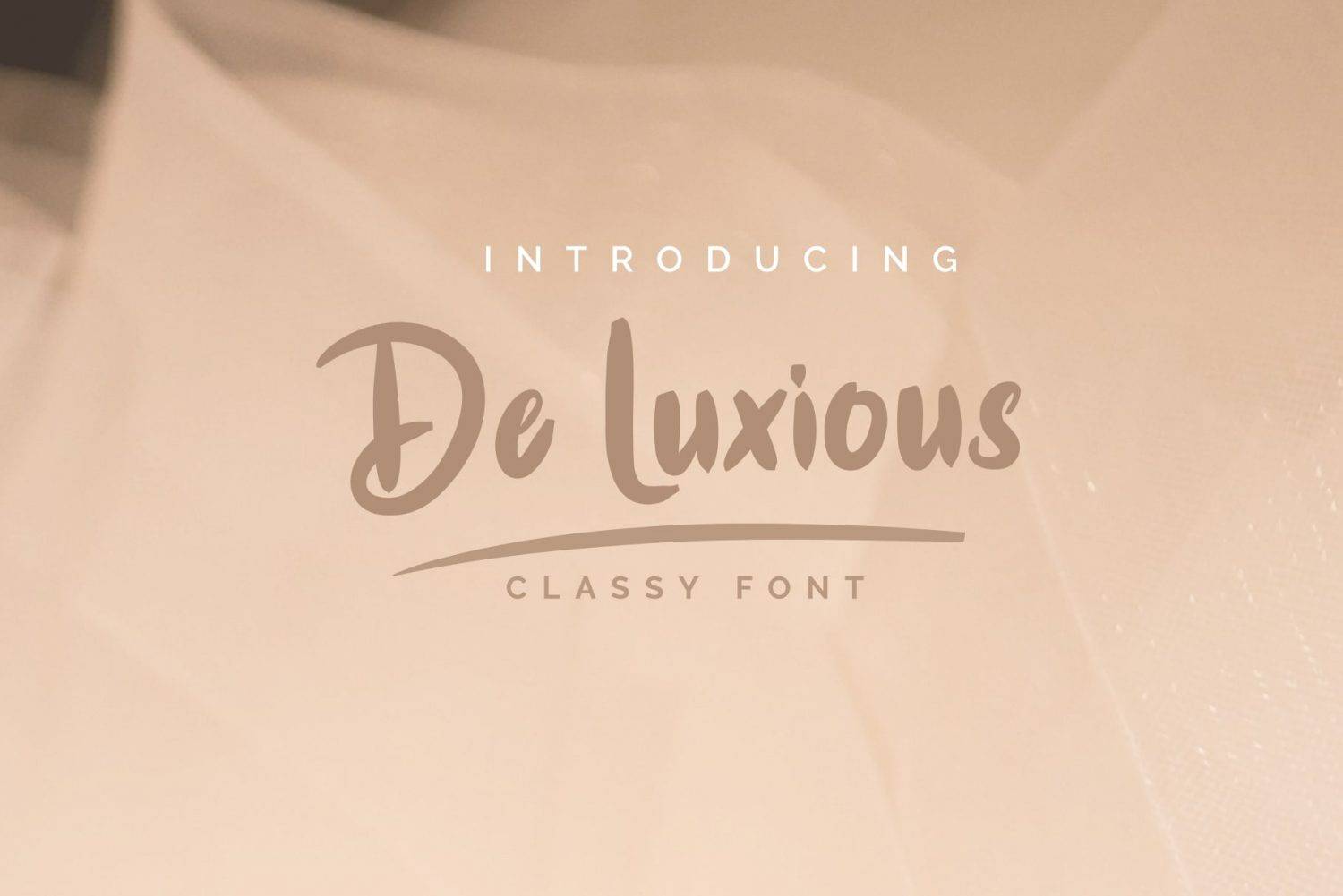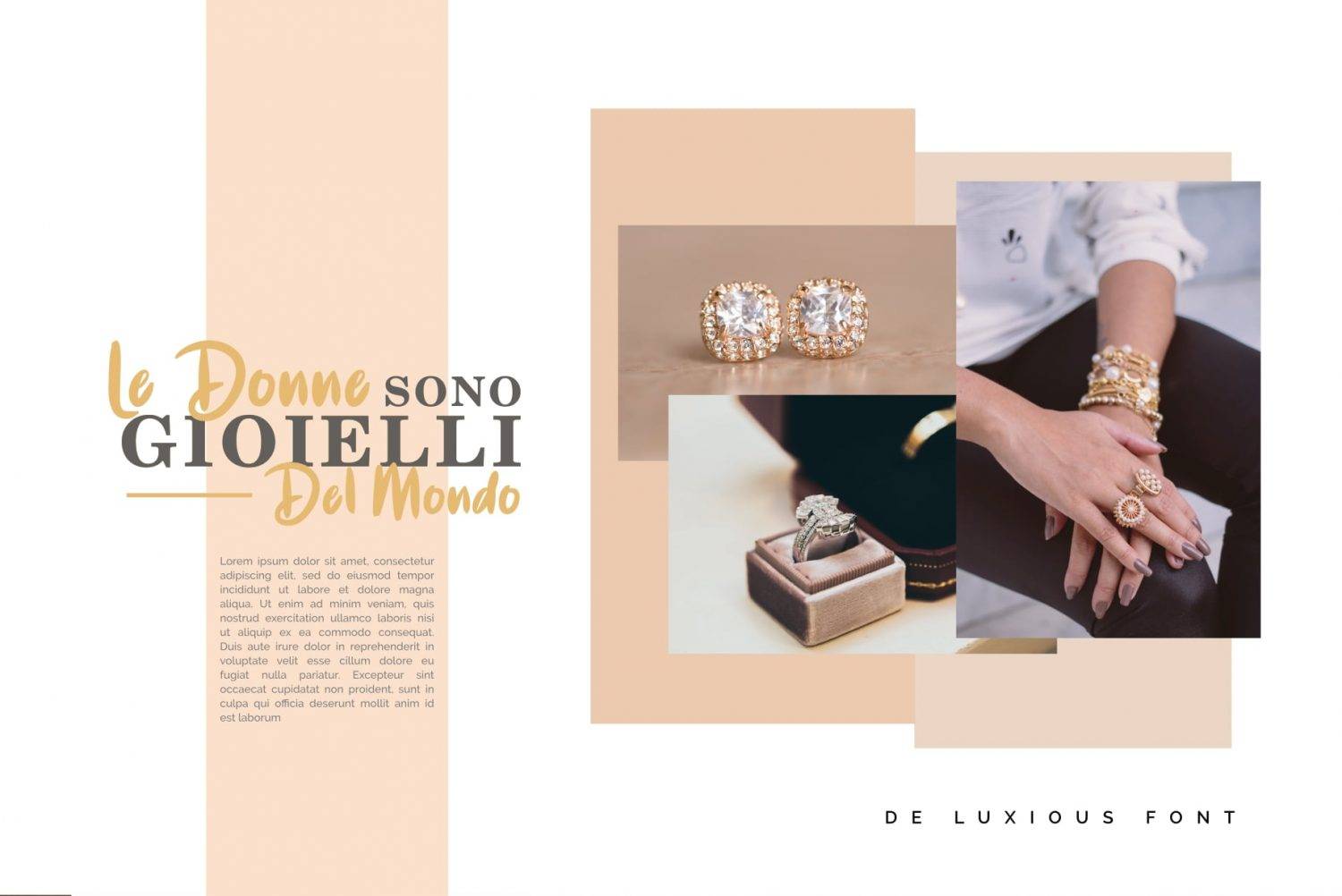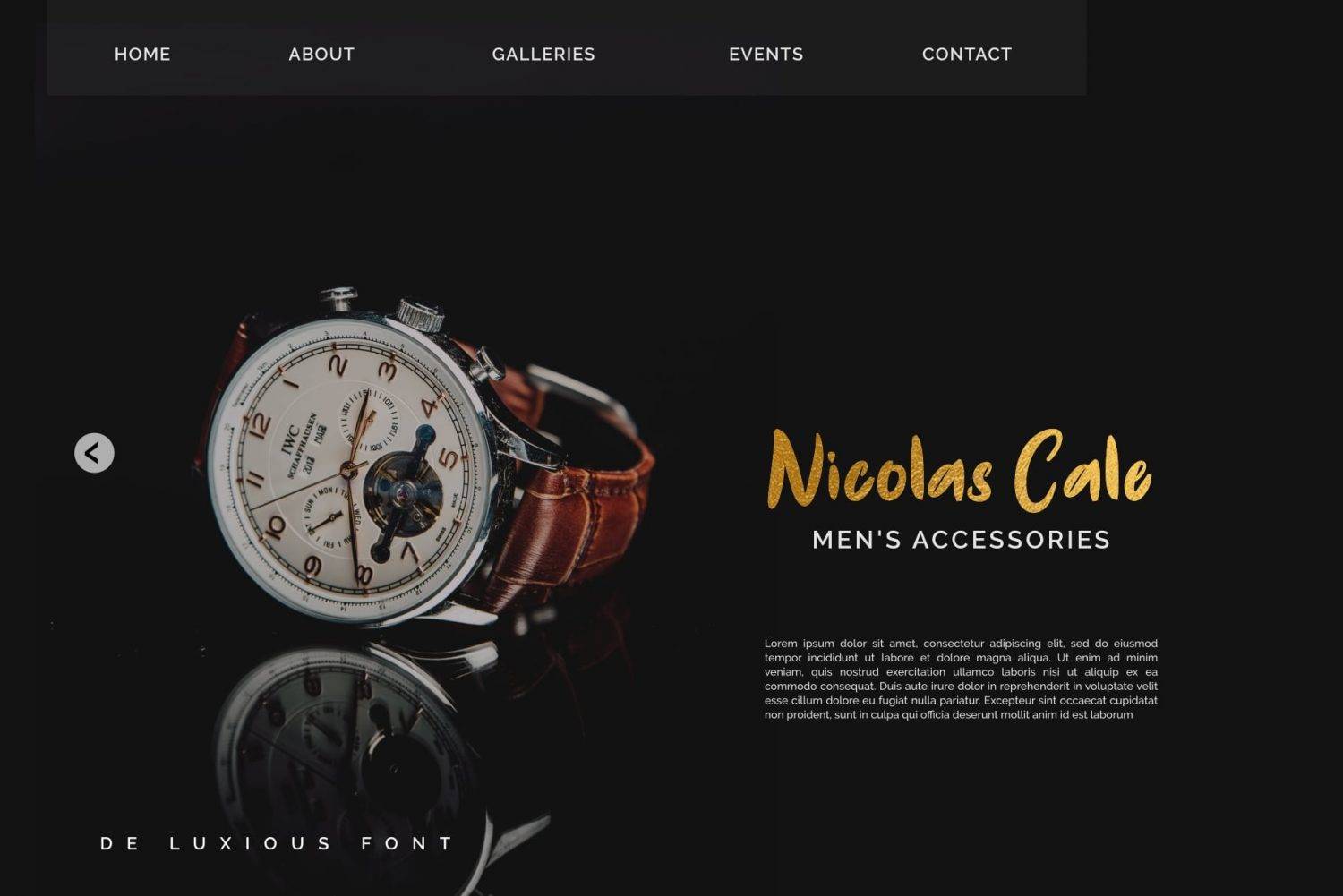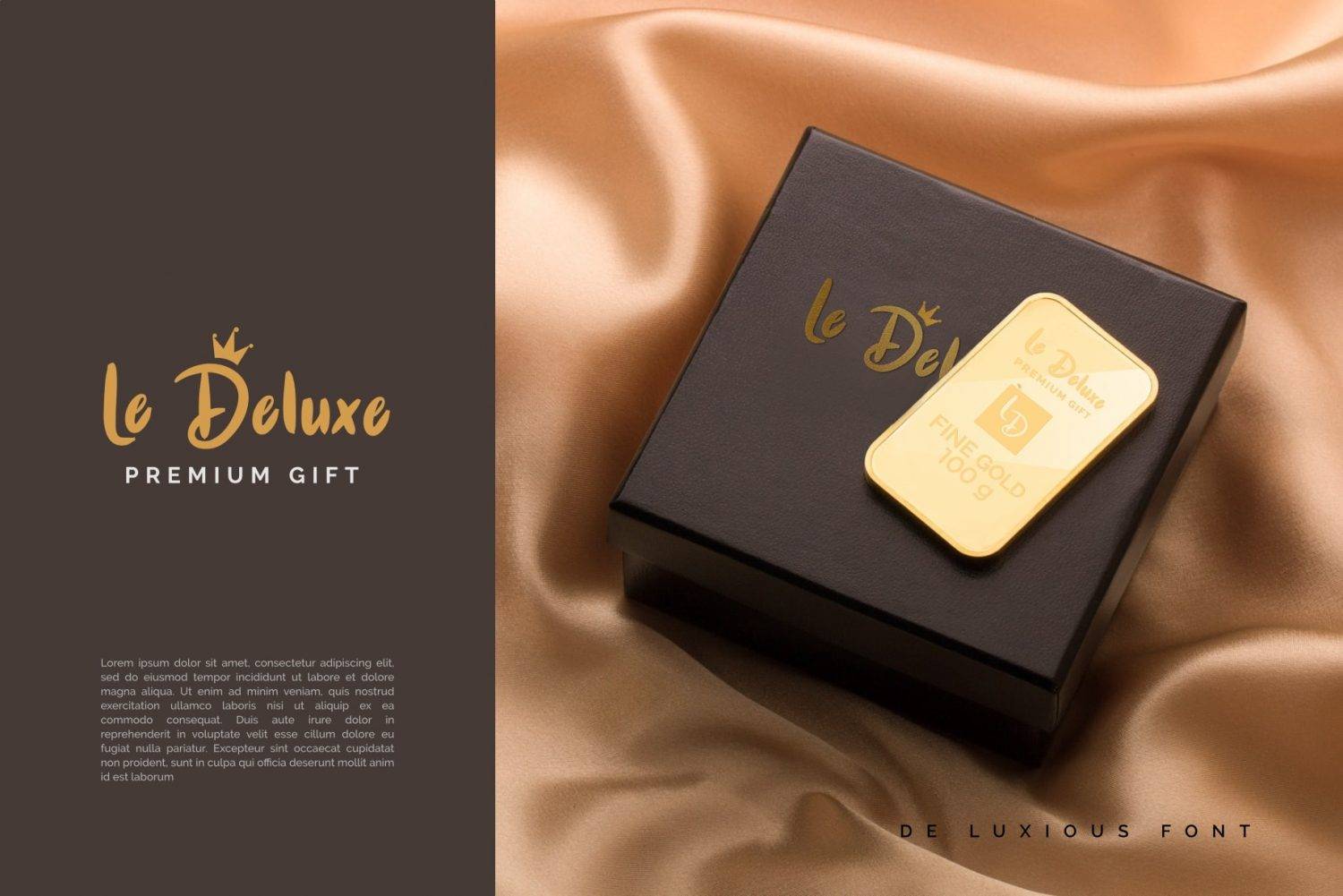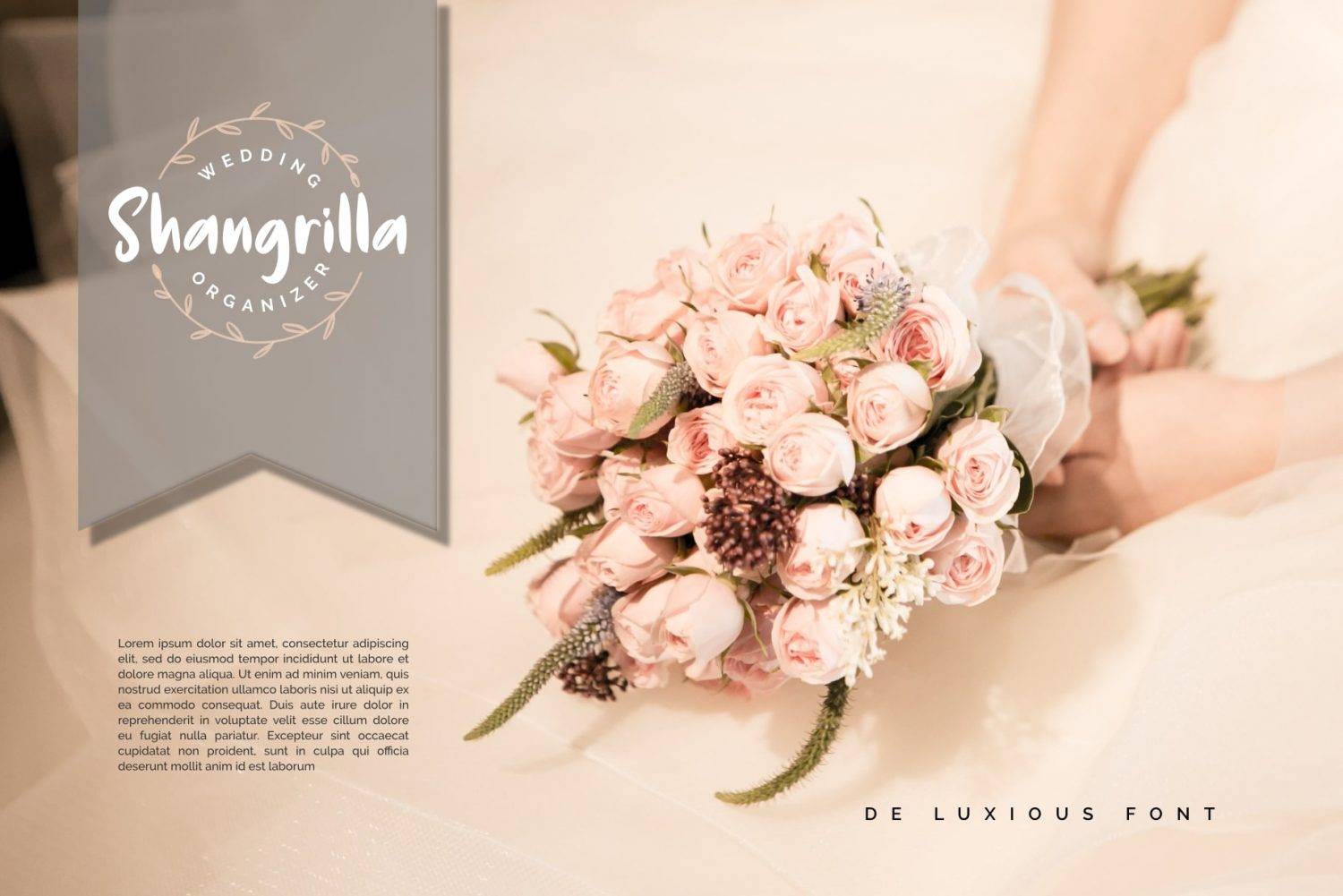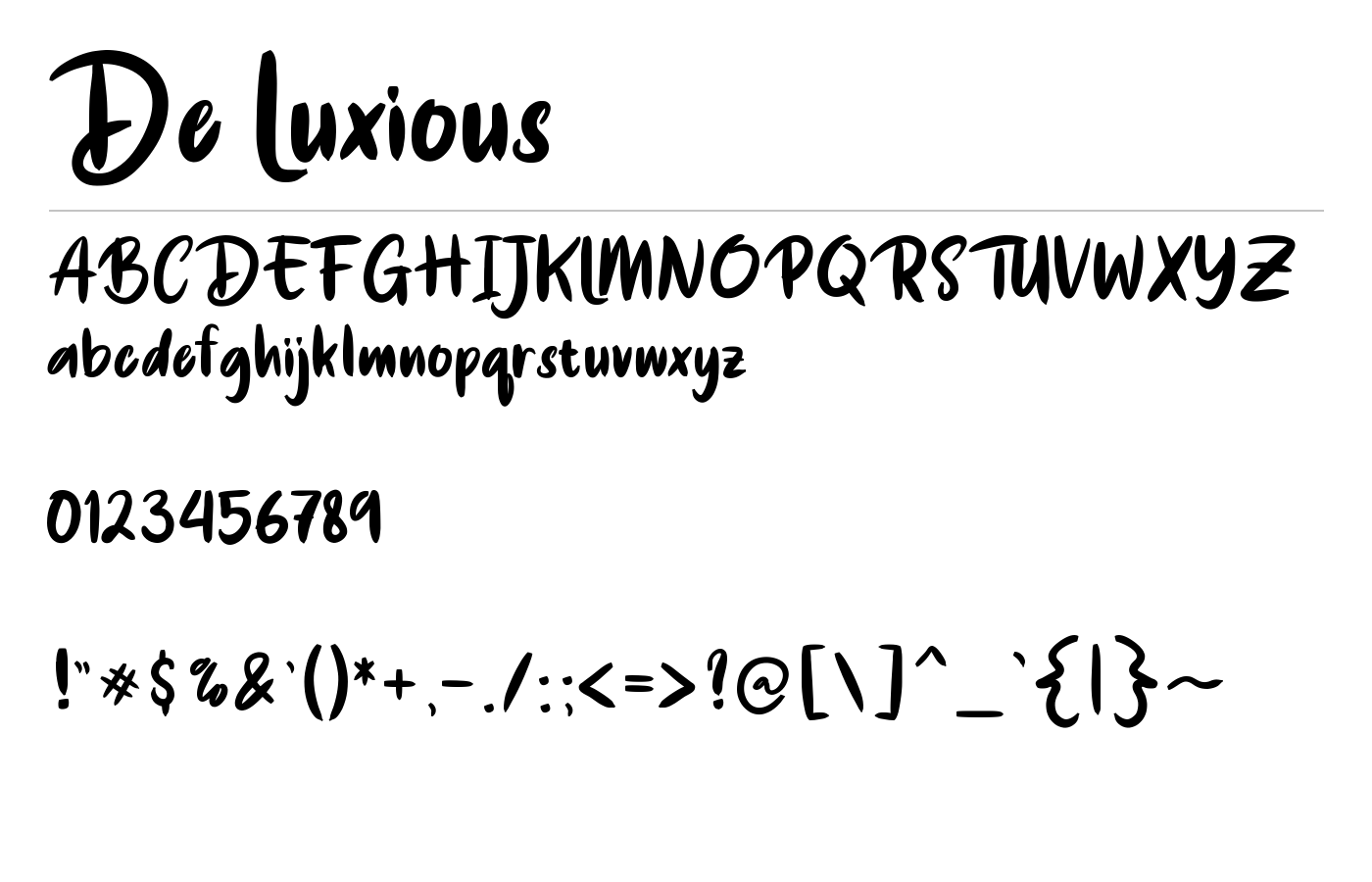
De Luxious is a lively, brush-script style font characterized by its casual, hand-drawn feel with a moderate weight and slightly condensed width. Its playful yet refined strokes offer a warm personality that suits creative and informal branding, making it ideal for logos, packaging, and headlines where a friendly, approachable tone is desired. This font shines in contexts that aim to communicate creativity and energy while maintaining readability.
De Luxious Font
About De Luxious Font